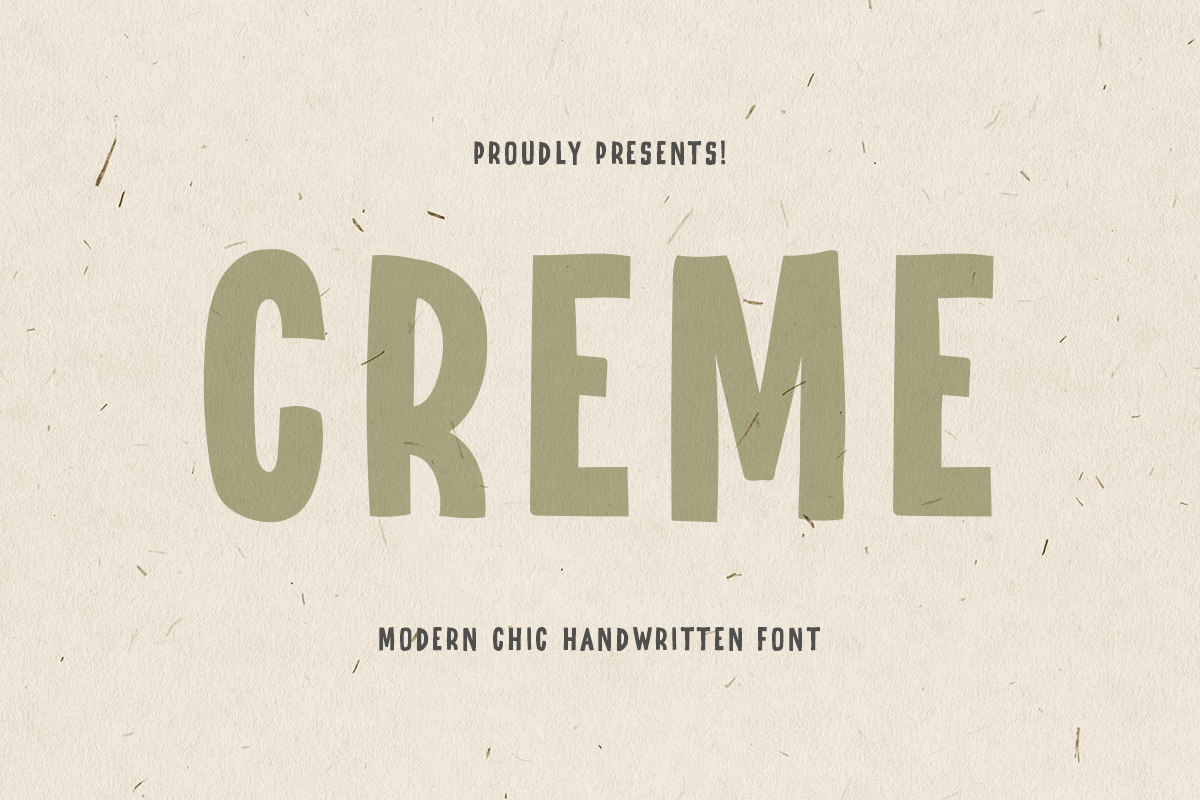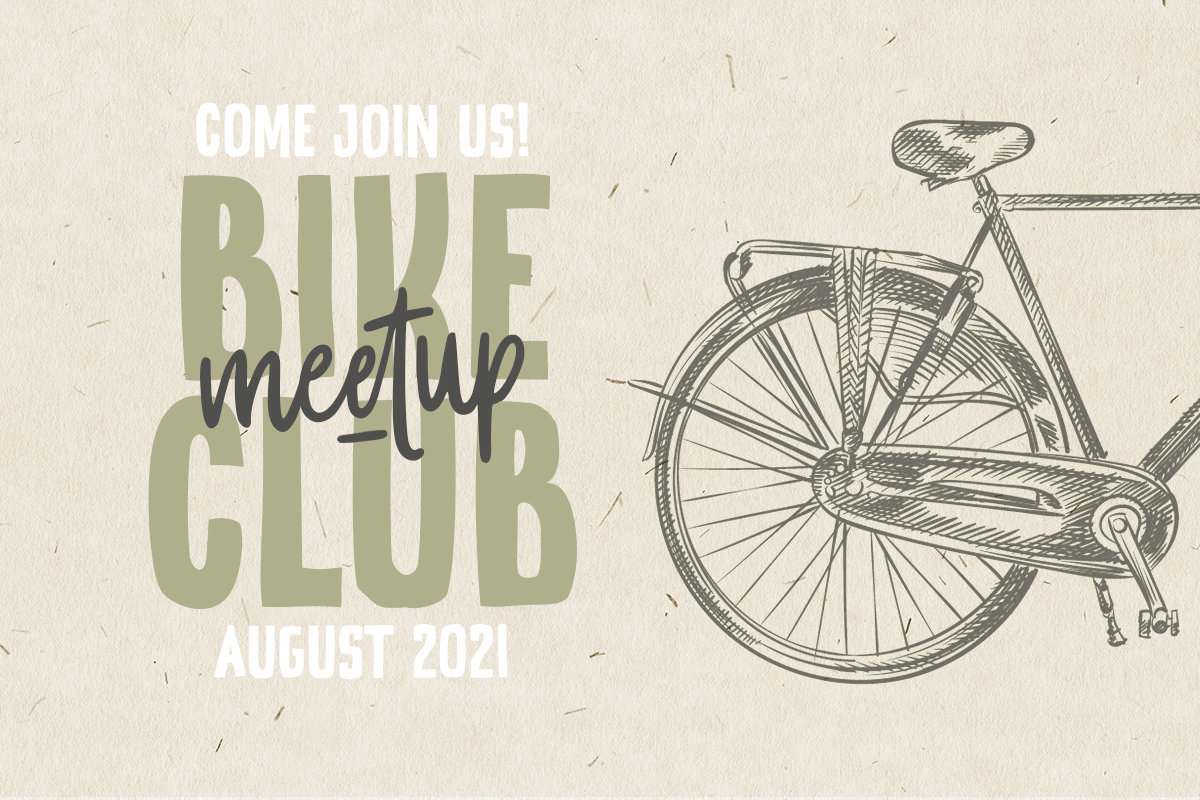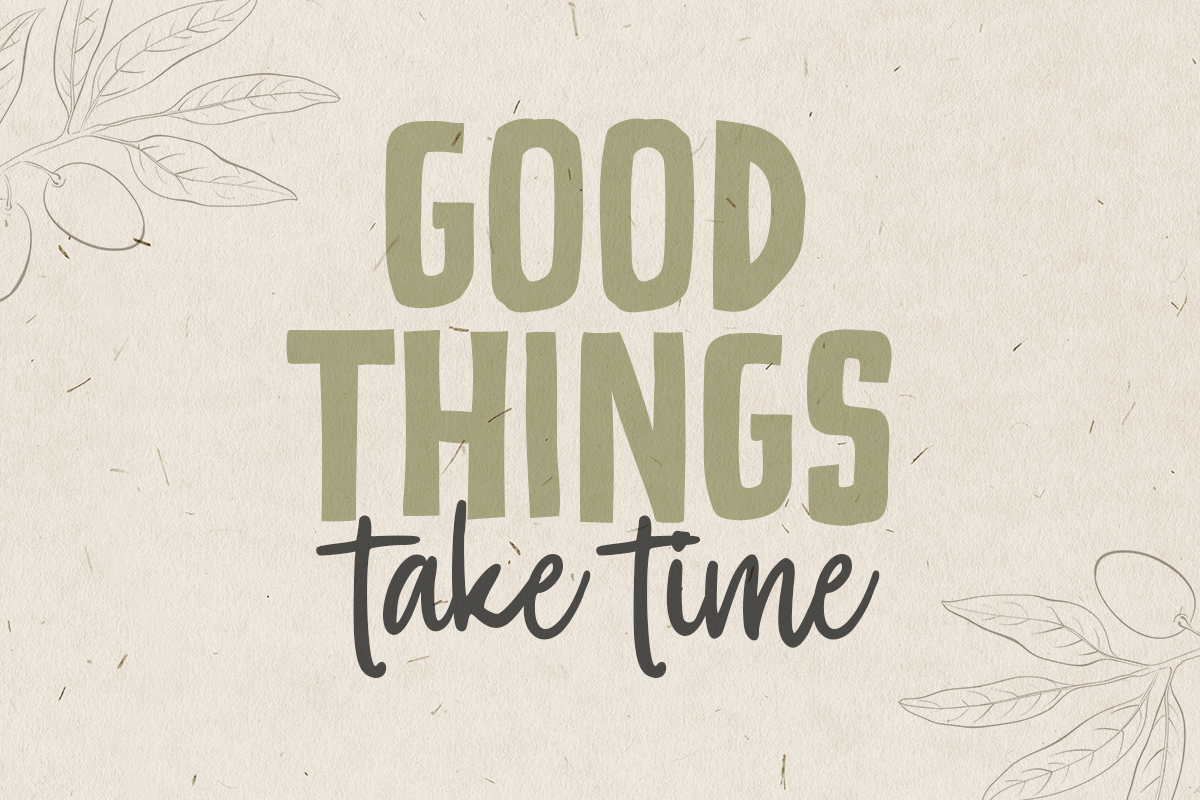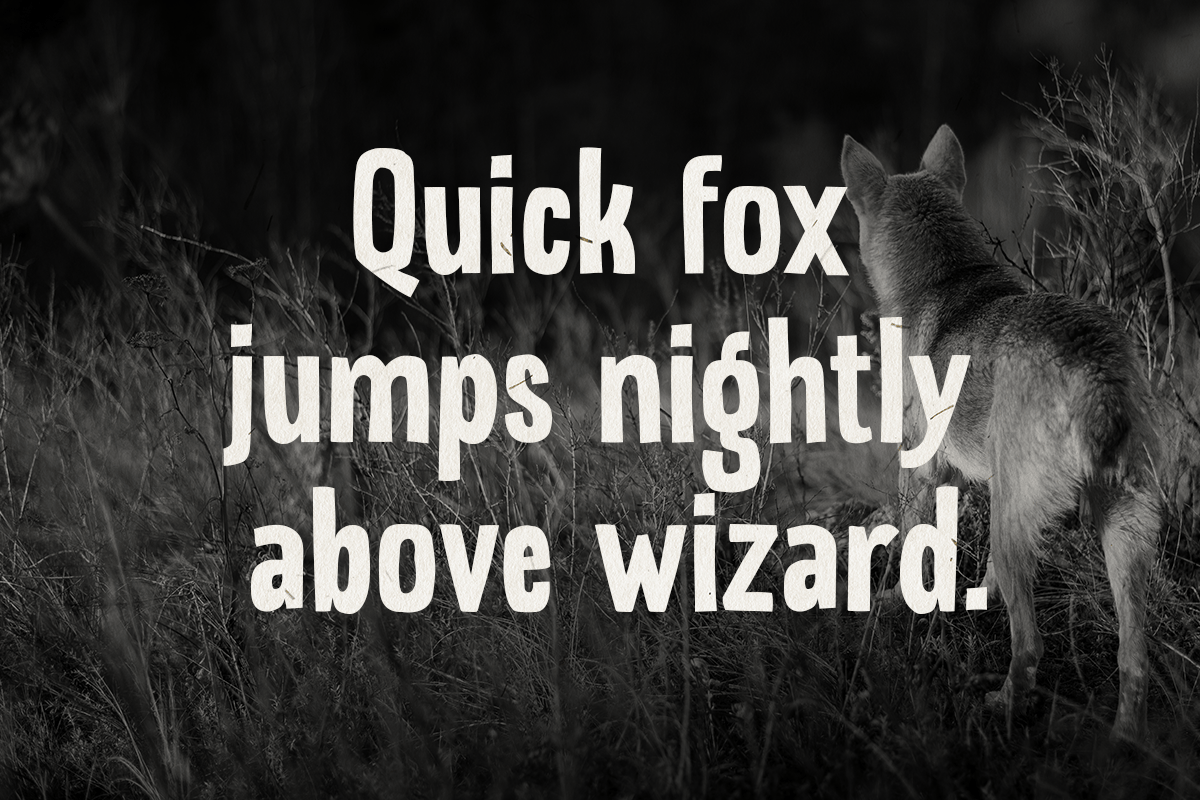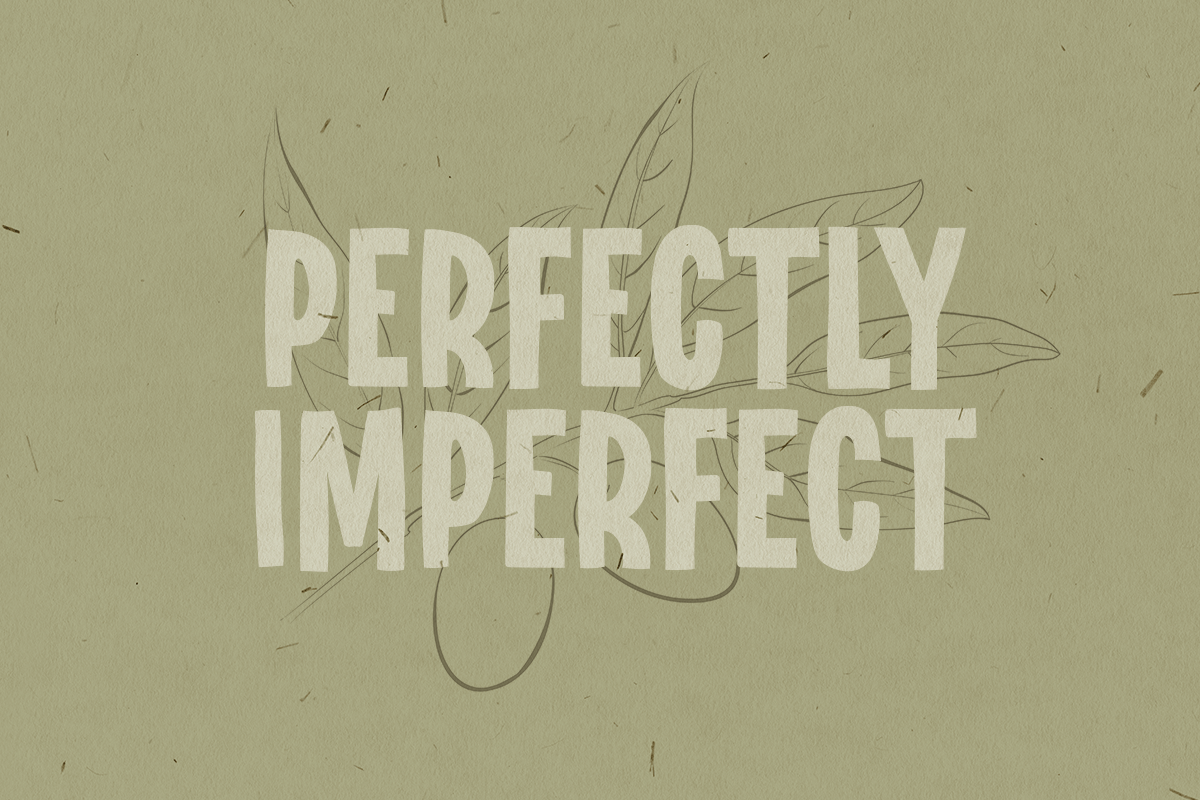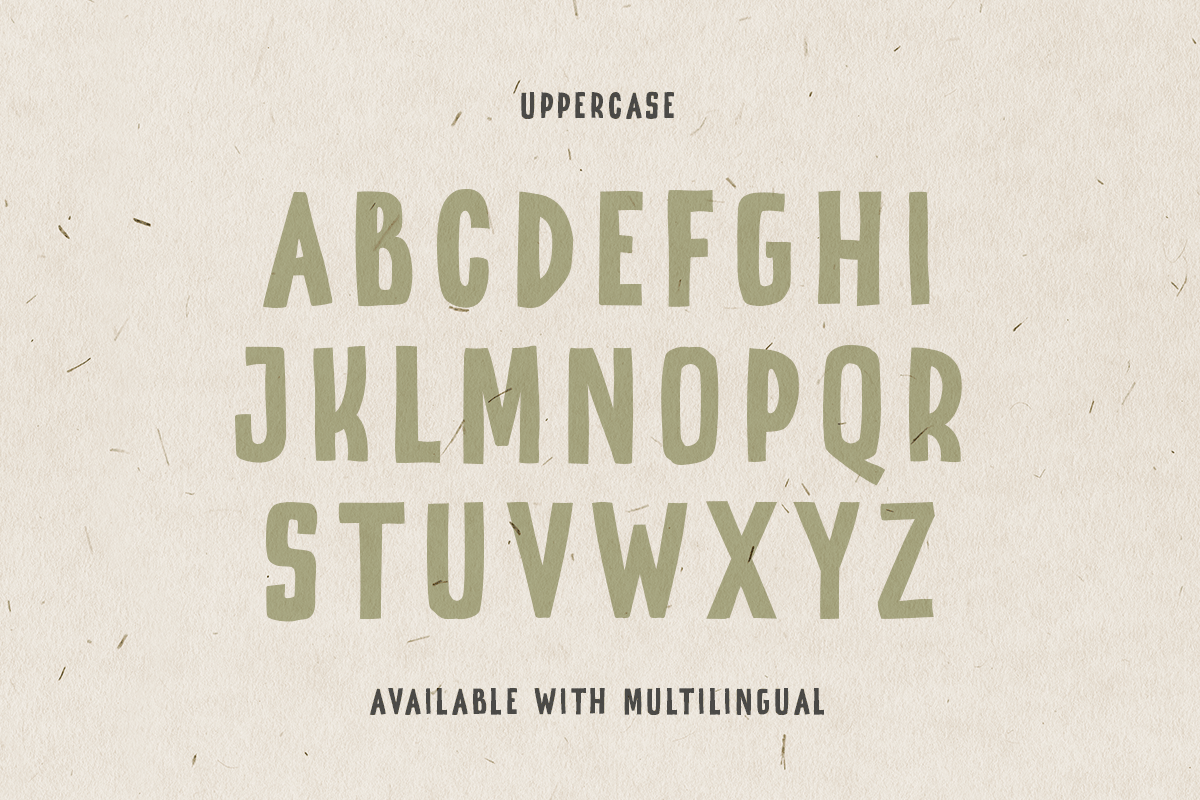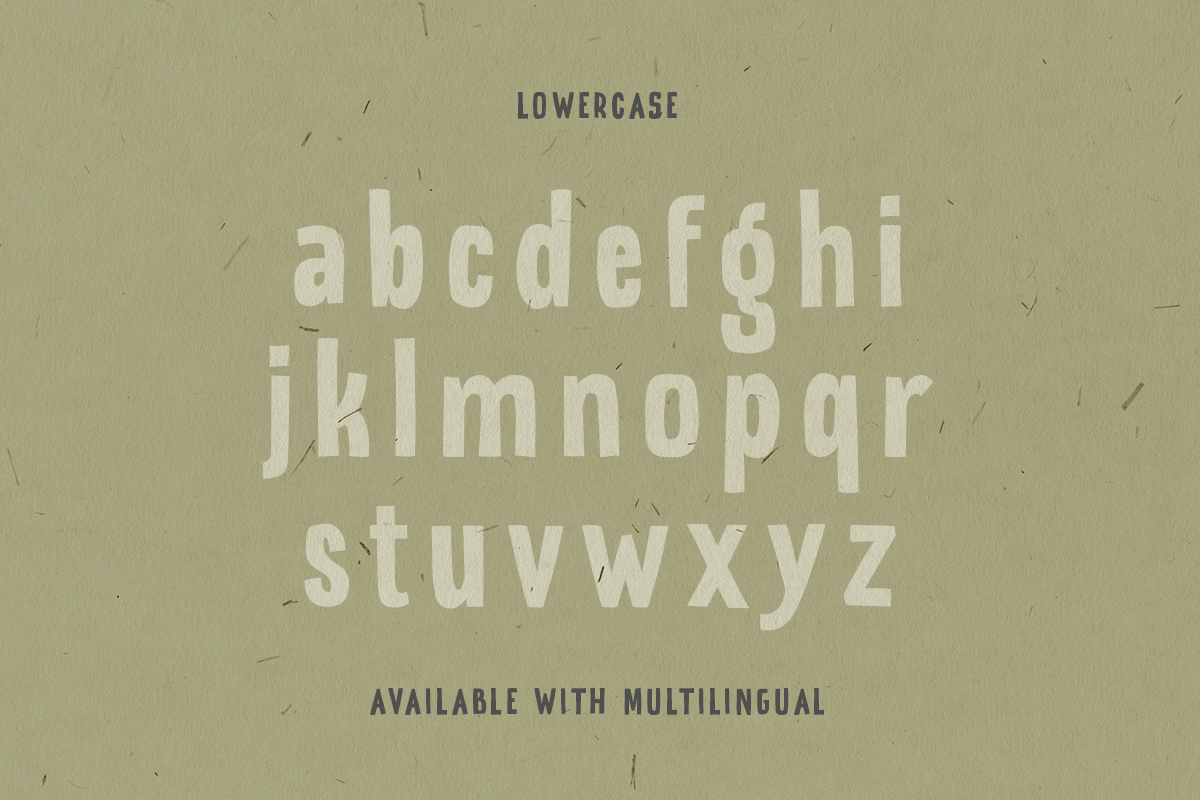
CREME – Modern Chic Hand-lettered font
Creme is a Fun Hand-Lettered Font that’s perfect for Headline, Thumbnail or Merchandise. This font specially crafted for your design projects such as banner, poster, flyer, website design, product packaging, merchandise, pillow print and so many more with easy to use but standing out results are so amazing.
Enjoy to Design any your needs with standing out, unique, and authentic feels.